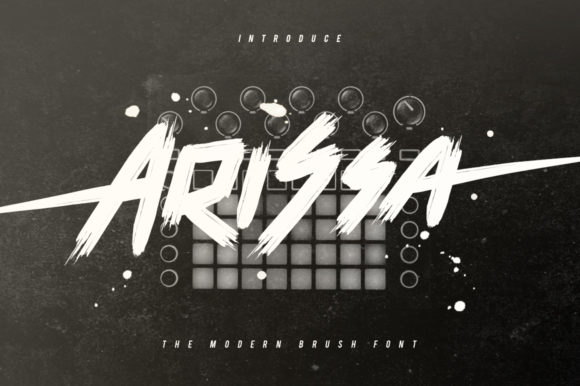
The Dramatic Charm of Arissa Font: A Designer’s Delight
I’ll never forget the time I was working on a branding project for a new boutique hotel. I had nailed the color palette, logo concept, and overall aesthetic, but something was missing – the perfect font. That’s when I stumbled upon Arissa Font, a dramatic display font that instantly captured the essence of the hotel’s luxurious and eclectic vibe. In this article, I’ll share my experience with Arissa, its features, and how to make the most of it in your designs.
An Honest Review of Arissa Font
What I Love About Arissa ✨
• 💥 **Dramatic Impact**: Arissa Font makes a bold statement with its brush-pen style, adding a touch of drama to any design.
• ✅ **Versatility**: It works wonders for logos, branding, headings, and more, making it a versatile addition to your font library.
• 🎨 **Unique Character**: The font’s messy, hand-crafted feel gives it a unique personality that sets it apart from more traditional fonts.
• 👍 **Easy to Read**: Despite its bold and artistic style, Arissa remains surprisingly legible, even at smaller sizes.
While Arissa Font is an excellent choice for many projects, it’s not without its quirks. For instance:
• 🤔 **Limited Use Cases**: Due to its bold and artistic nature, Arissa might not be the best fit for body text or more formal designs.
• ⚠️ **Glyph Limitations**: While Arissa has a range of glyphs and OpenType features, it might not have every special character or symbol you need.
A Practical Guide to Using Arissa Font
The Story Behind Arissa Font
Arissa Font was inspired by the dramatic flair of brush-pen calligraphy. Its creator aimed to capture the expressive, hand-crafted feel of traditional lettering in a digital font. The result is a unique and eye-catching typeface that’s perfect for designers looking to add a touch of personality to their work.
Q: What type of projects is Arissa Font best suited for?
A: Arissa Font excels in projects that require a bold, artistic statement, such as logos, branding, headings, and titles.
Q: Can I use Arissa Font for body text?
A: While Arissa is surprisingly legible, its bold and artistic nature makes it less suitable for body text. It’s best used for headings and titles.
Q: Does Arissa Font support OpenType features?
A: Yes, Arissa Font supports various OpenType features, including glyphs, stylistic alternates, and ligatures.